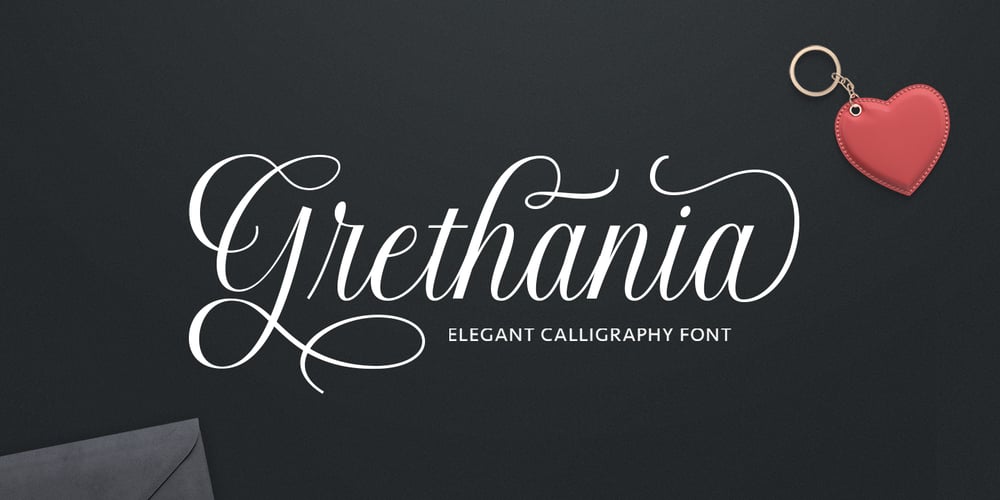
Grethania Script Font Family was designed by Romi Rahmadi and published by Romie Creative. Grethania Script contains 2 styles and family package options. Grethania Script is a calligraphic script font that comes with beautiful alternative characters. a mixture of copper plate calligraphy with handlettering style. Designed to convey the elegance of style. Grethania is interesting because it is smooth, clean, feminine, sensual, glamorous, simple and very easy to read. Classic style is very suitable to be applied in all types of formal work such as invitations, labels, menus, logos, fashion, make up, stationery, letterpress, romantic novels, magazines, books, greeting / wedding cards, packaging, labels.Grethania Script displays 310+ glyphs and 122 alternative characters. including multiple language support. With OpenType features with changes in style, binder and character swash, which allows you to mix and match pairs of letters to fit your design.To activate the OpenType Stylistic alternative, you need a program that supports OpenType features such as Adobe Illustrator CS, Adobe Indesign & CorelDraw X6-X7, Microsoft Word 2010 or newer versions. (Windows), Font Book (Mac) or software programs such as PopChar (for Windows and Mac).How to access all alternative characters using Adobe Illustrator:https://www.youtube.com/watch?v=XzwjMkbB-wQHow to use font styles that are set in Microsoft Word 2010 or later:https://www.youtube.com/watch?v=NVJlZQ3EZU0There are additional ways to access alternatives / swash, using Character Maps (Windows), Nexus Fonts (Windows) Font Book (Mac) or software programs such as PopChar (for Windows and Mac).How to access all alternative characters, using Windows Character Map with Photoshop:https://www.youtube.com/watch?v=Go9vacoYmBw